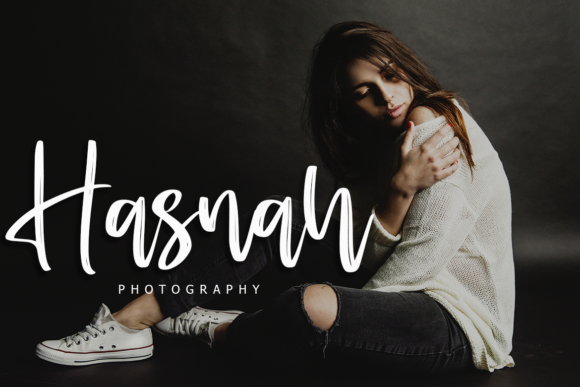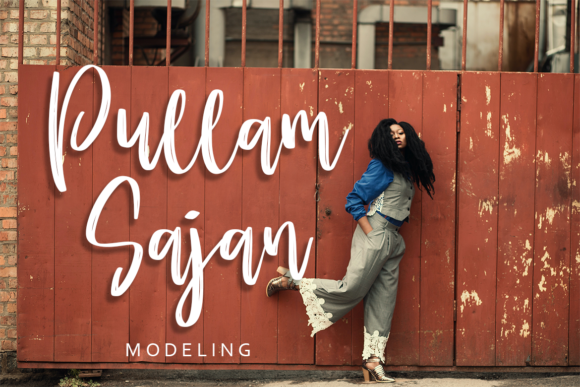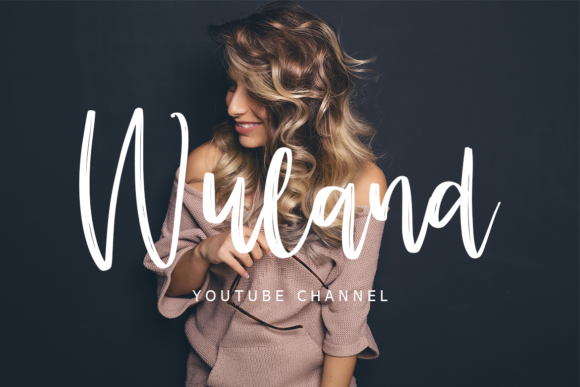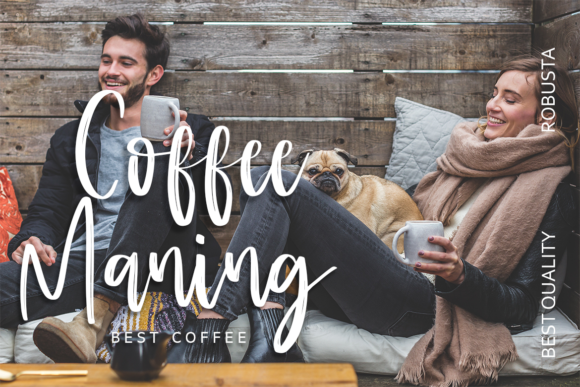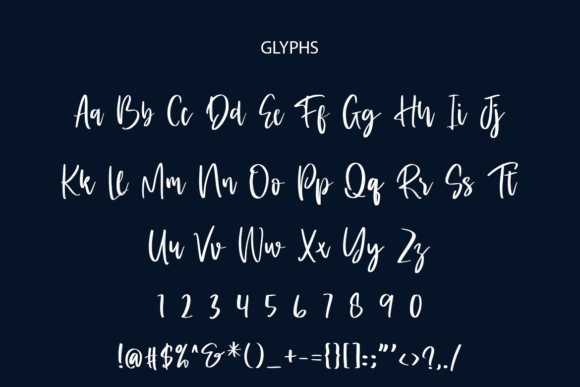
Barleny Font
About Barleny Font
Barleny is a relaxed and flowing handwritten font, described by an elegant touch, perfect for your favorite projects. Fall in love with its incredibly distinct and timeless style and use it to create spectacular designs!